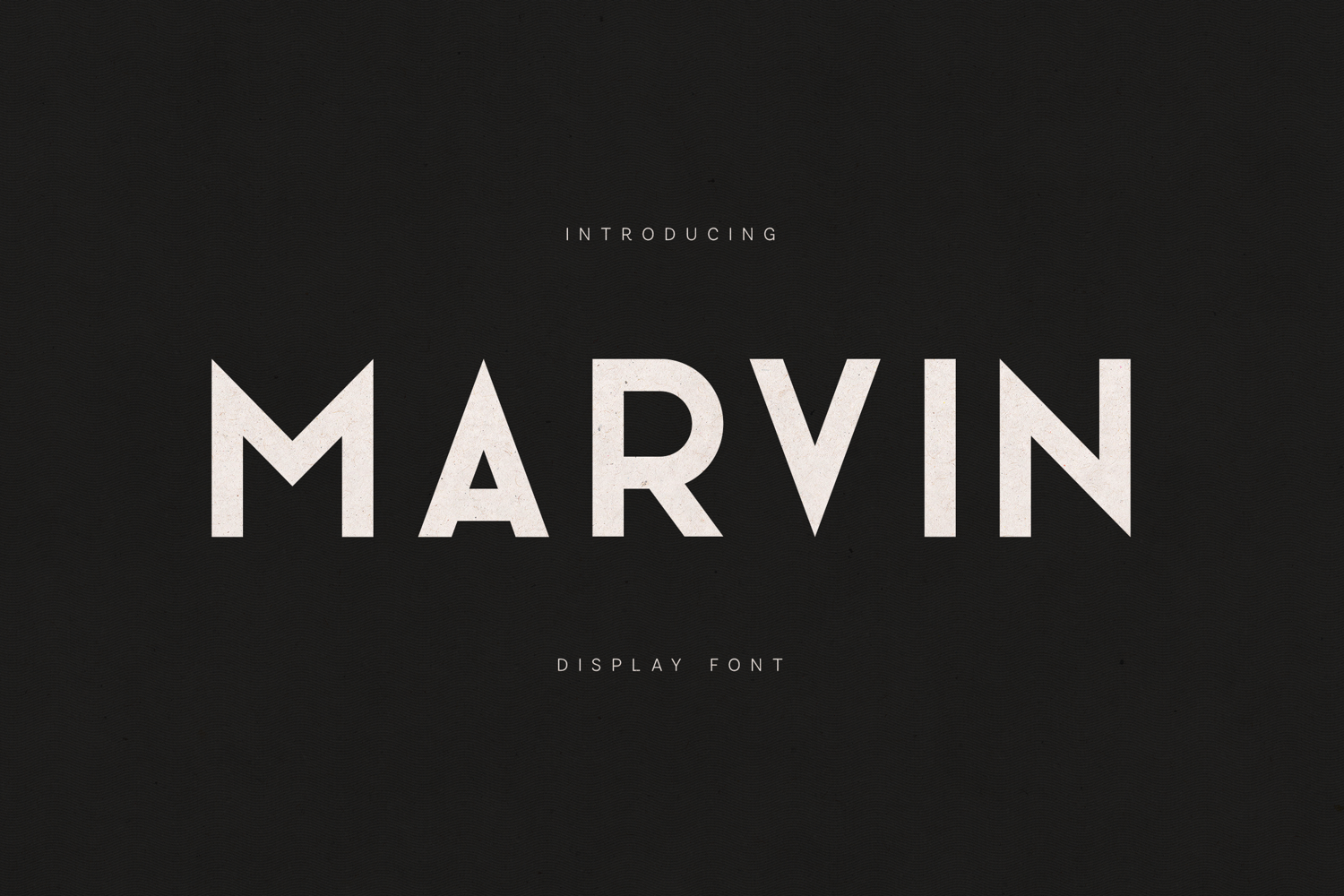
Marvin Display Font | Modern Geometric Sans Serif Typeface
Marvin is a bold geometric display font designed to make a strong visual impact. Featuring clean lines, sharp angles, and a modern minimalist aesthetic, Marvin delivers powerful typography that feels contemporary, confident, and highly versatile.
Built for designers who need attention-grabbing headlines and memorable branding, Marvin works beautifully across logos, posters, packaging, editorial layouts, websites, social media graphics, advertising campaigns, product presentations, magazine covers, and corporate identities.
Its balanced geometric construction creates excellent readability while maintaining a distinctive personality that stands out in both digital and print applications. Whether you're designing for technology brands, fashion labels, creative studios, startups, architecture projects, luxury products, or modern businesses, Marvin provides a bold and professional typographic voice.
• Modern Geometric Display Typeface
• Uppercase & Lowercase Characters
• Multilingual Language Support
• Clean Minimalist Design
• Strong Branding Potential
• Perfect for Headlines & Logos
• High Readability
• Contemporary Sans Serif Style
Marvin is an excellent choice for designers seeking a modern display font that combines geometric precision, visual strength, and timeless versatility.